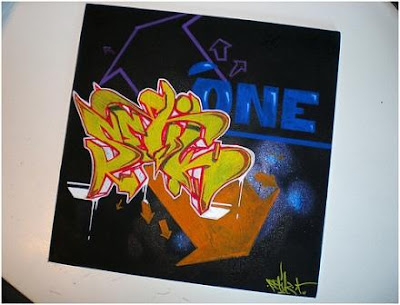
MUTUAL collaboration, we see that pen made alphabet and the background of the same tools doing. But in there we sense of spray paint. But I think is not too much trouble to do on the paper as long the spray is in the low pressure. I think what made first is the background, coz in the word one the graffiti alphabets of “setik’ taking its place to cover part of that word. After all the effort by the background color, apply some graffiti alphabets with more bright color to sending irony, and making the graffiti alphabets stand tall.